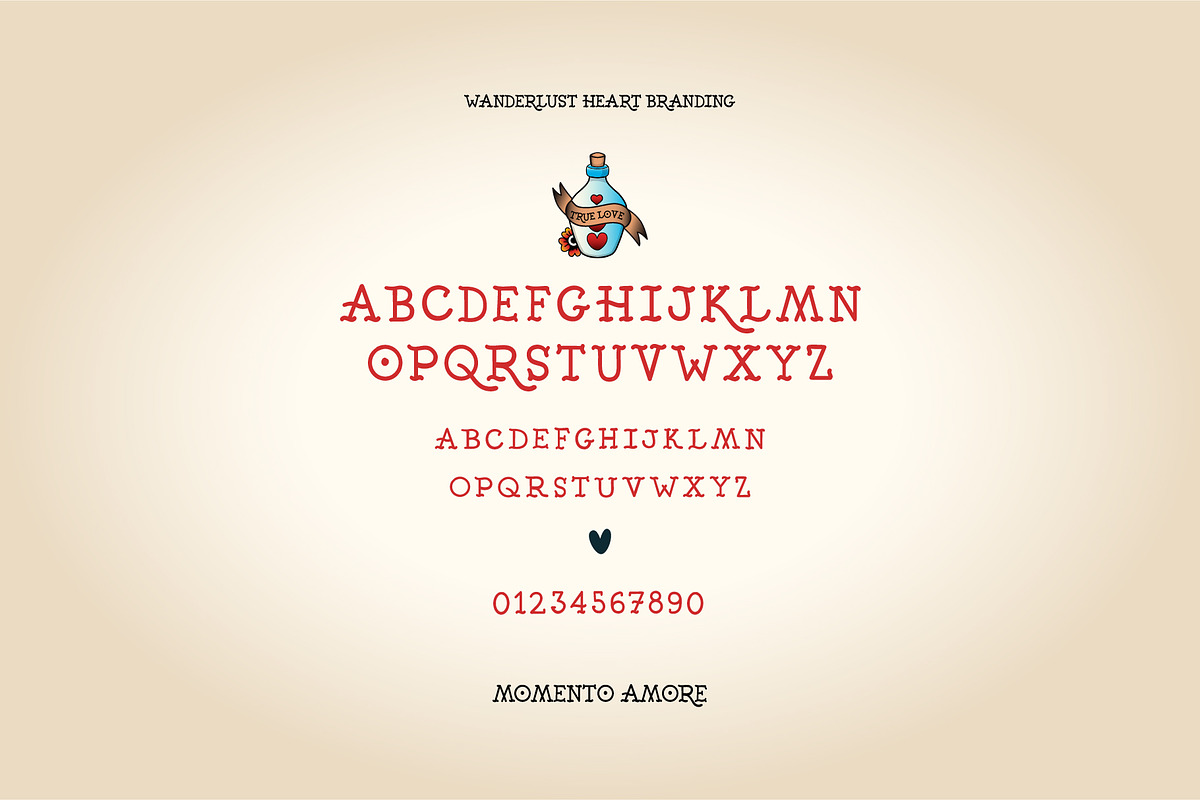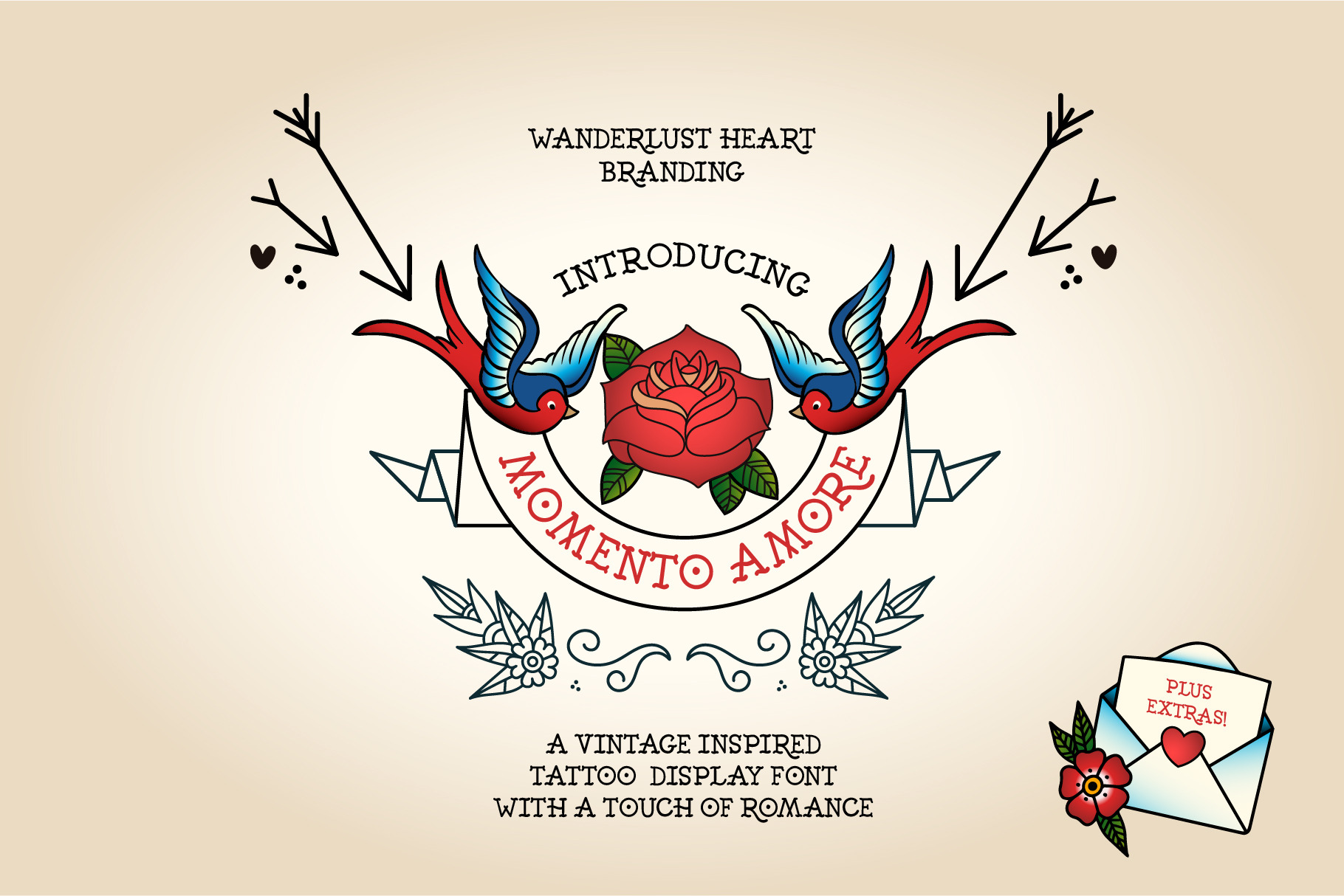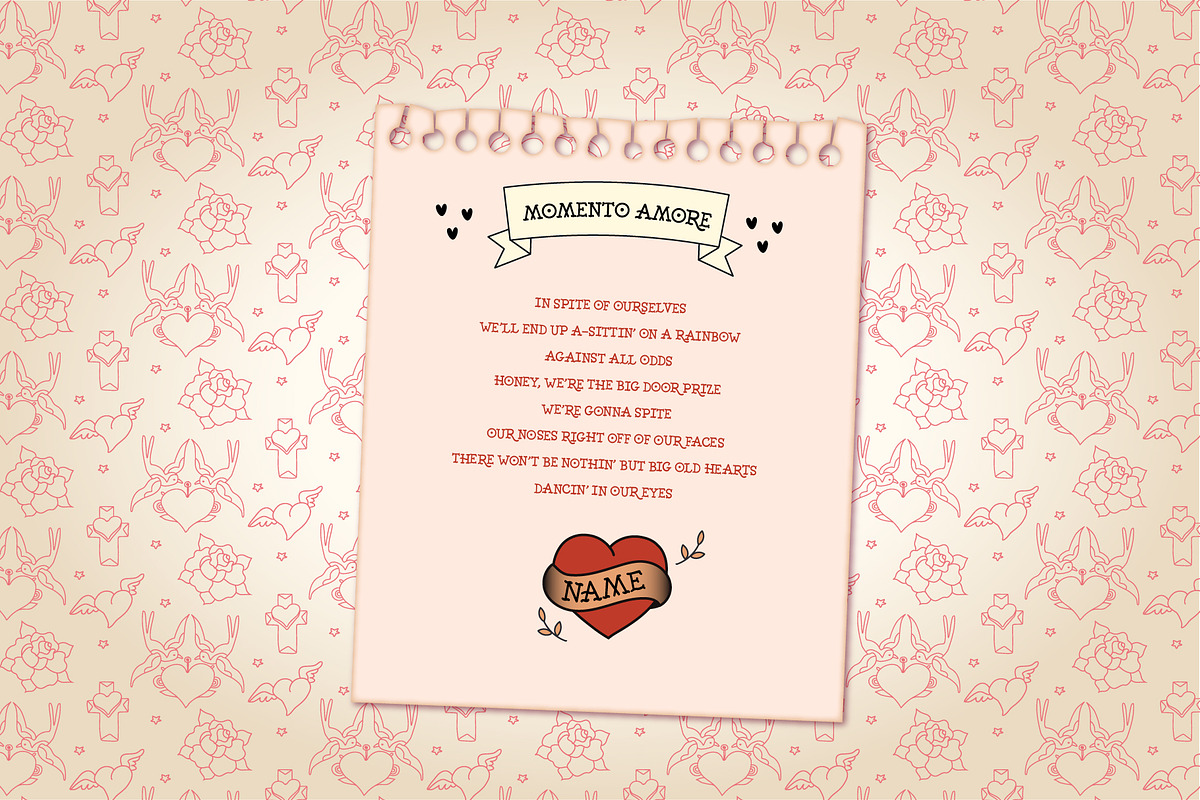
Momento Amore Font
Momento Amore, a hand lettered font that weaves the artistry of tattoo lettering with the essence of romance. Envision each stroke as a tender caress, shaping letters that resonate with the heart's deepest emotions. This font isn't merely a tool; it's a storyteller, narrating tales of love with an elegance that dances between boldness and delicacy.